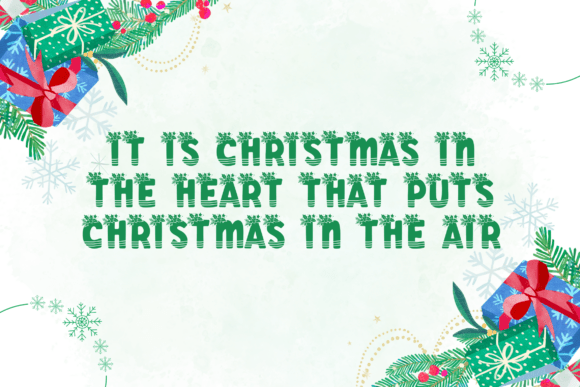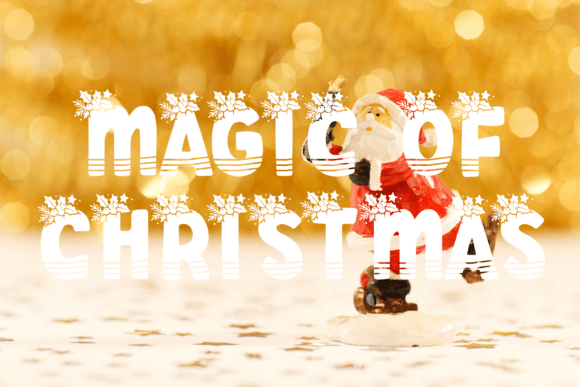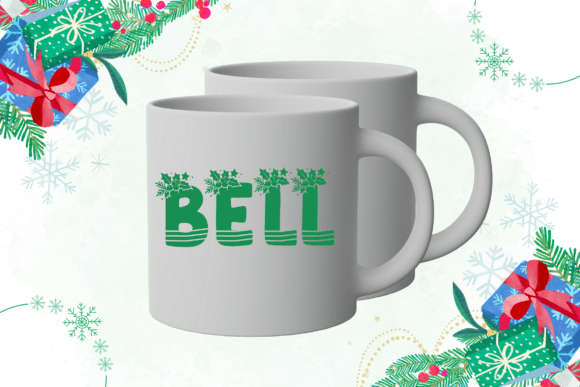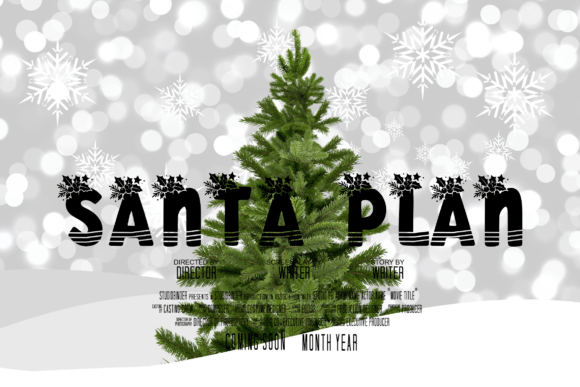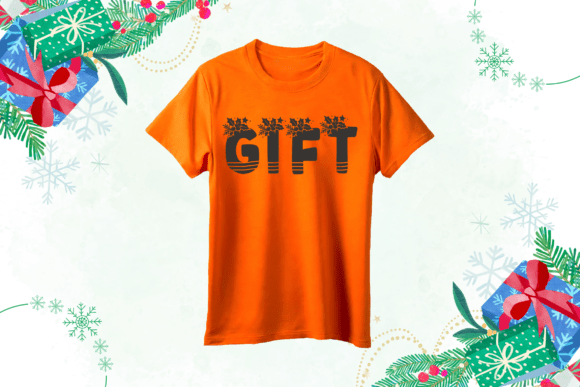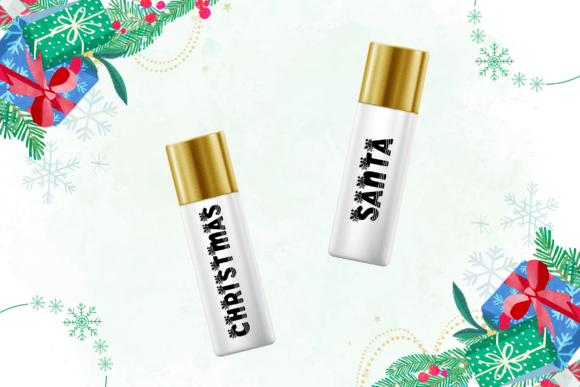
Introduction to Quirky Jingle Font
Quirky Jingle – Playful & Festive Holiday Font Quirky Jingle is a joyful and spirited display font inspired by the magic of the holidays.
With its bold, bouncy letters and cheerful character, this font is perfect for Christmas cards, festive merchandise, seasonal invitations, and holiday-themed crafts Its hand-drawn charm and whimsical style add a lighthearted, magical vibe to every project it touches.